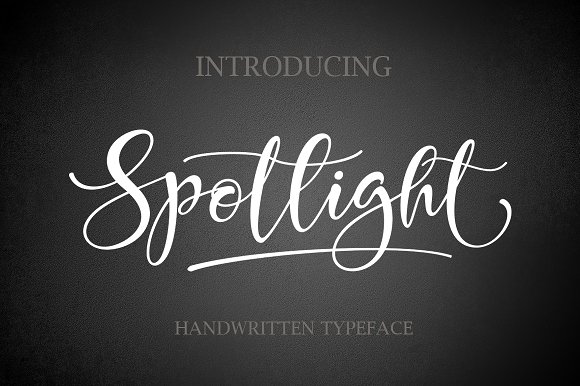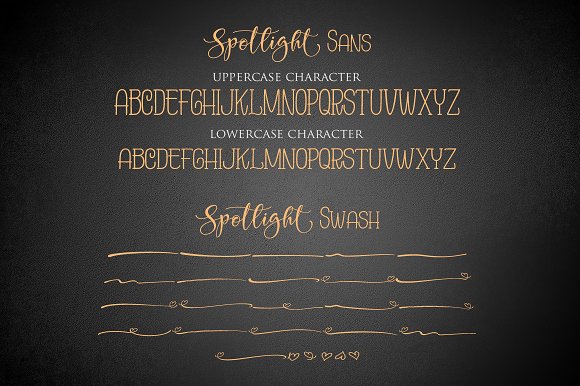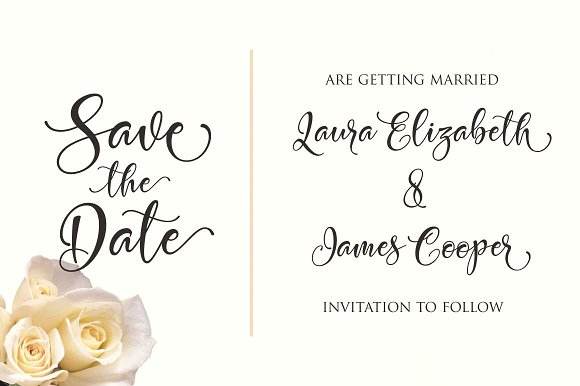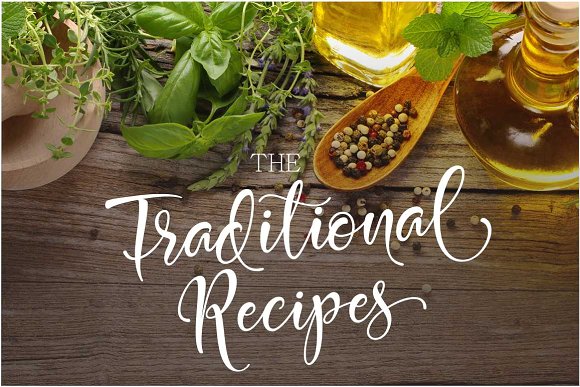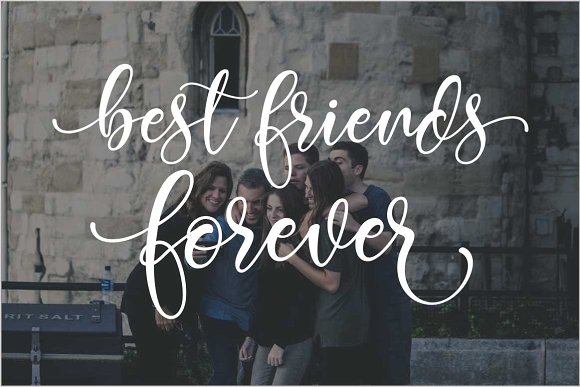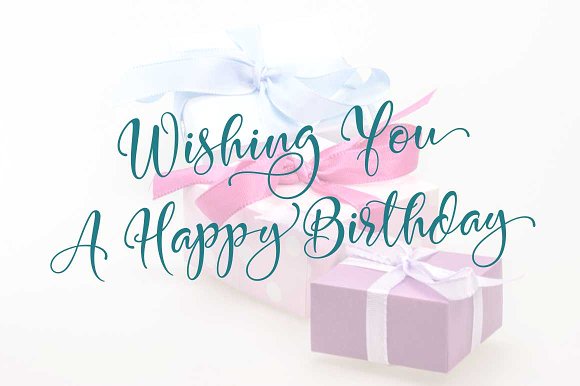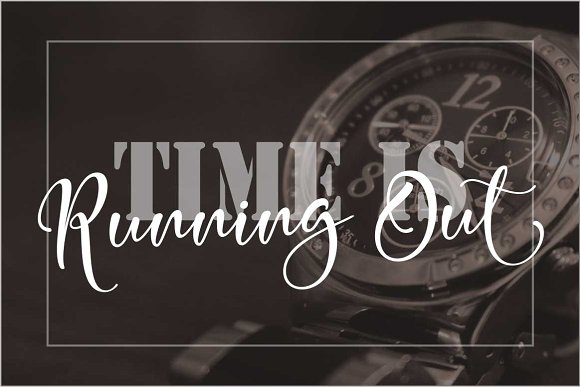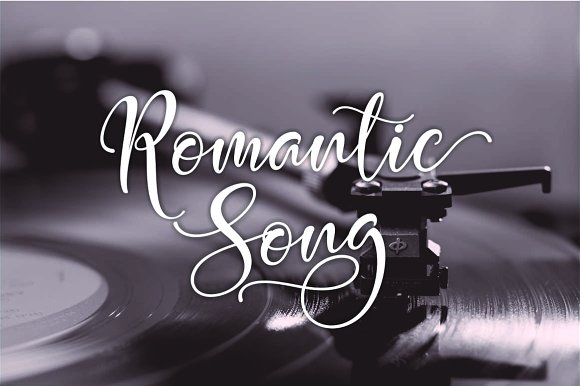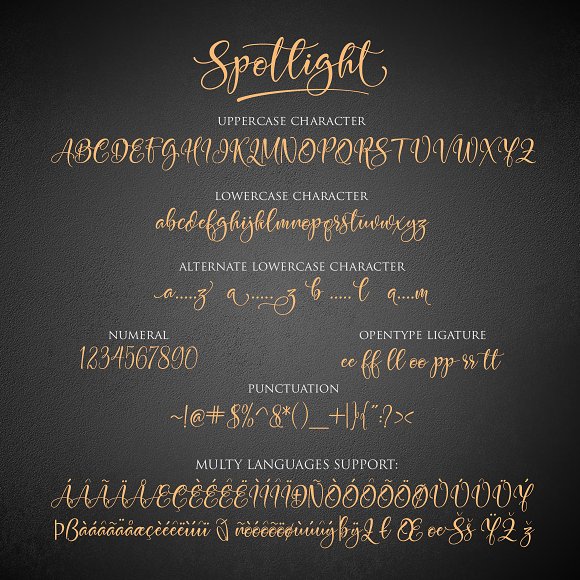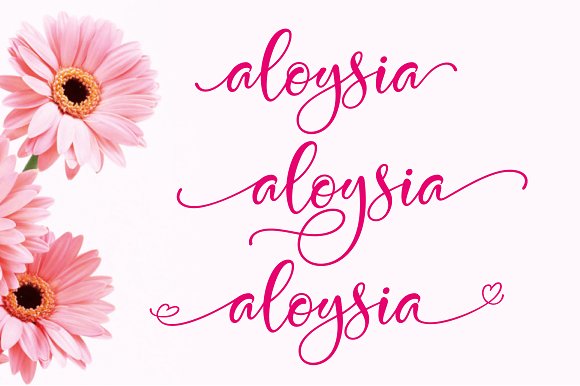
Spotlight Font
About Spotlight Font
Spotlight is a font that comes packed with more than 490 hand painted characters. It has been digitally perfected into a stunning flowing font.